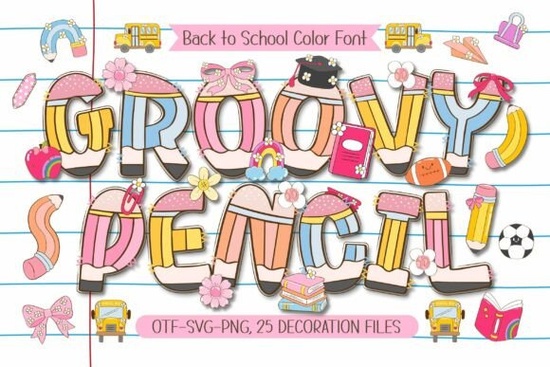
Designing back-to-school materials requires a careful balance of readability and fun. If you are creating teacher resources, classroom decorations, or custom apparel, the Groovy Pencil Font offers a straightforward way to add vibrant, educational character to your work. This hand-drawn color typeface integrates adorable pencil-shaped details directly into the letterforms, saving you the extra step of sourcing separate icons. Whether you are a seasoned graphic designer or a creative hobbyist making DIY crafts for your children, having a reliable, thematic typeface can significantly speed up your workflow.
What exactly comes inside this colorful font bundle?
When you download the Groovy Pencil Font, you receive much more than a standard set of alphabet characters. The package features the main typeface available in four bright, pre-colored variations. This means the multi-colored effect is built directly into the file, which is highly convenient for crafters using design software. Alongside the typography, the creator includes 25 hand-drawn school-themed doodle cliparts. These extra graphics cover classroom essentials and educational icons that perfectly match the lettering style. The cliparts feature common items like rulers, apples, and notebooks, which are incredibly useful for designing welcome signs or syllabus covers. Having matching typography and graphics in one place ensures visual consistency across all your printed materials.
How can small businesses apply this to print-on-demand products?
For print-on-demand sellers, standing out in the crowded back-to-school niche means offering unique, eye-catching graphics. You can use this bold style to create custom T-shirts for teachers, personalized student name labels, or festive classroom banners. Because the letters already have a built-in hand-drawn aesthetic, they look fantastic on tote bags and stickers without needing complex background illustrations. Simply type out a phrase, add one of the included doodle graphics, and your design is ready for printing. The playful nature of the artwork appeals directly to parents and educators looking for cheerful supplies. You can also use the individual alphabet letters to create personalized locker nameplates or custom binder spines. Because the style is naturally bold, it remains highly legible even when printed on textured fabrics or viewed from a distance in a busy classroom environment.
What other typefaces work well for classroom and kid-friendly designs?
Sometimes a single typeface is not enough for a complete project, especially when designing scrapbook pages or layered invitations. Mixing different styles helps create visual hierarchy. If you want to explore similar playful aesthetics for your next project, you might want to check out the energetic lines of the Sparkle Stripes typeface for a retro vibe. For projects requiring a slightly more textured, handmade feel, pairing your main text with a twisted rope style lettering adds a nice tactile contrast.
If your design needs a delicate, handwritten touch to balance the bold letters, a flowing script option like Tiasa Hurung works beautifully for subheadings or teacher names. Finally, for those working on early autumn projects that transition into fall holidays, a stitched pattern alphabet can provide a cozy, crafty alternative to standard solid colors.
- Mix and match: Combine the bold letters with the 25 included doodle cliparts to create unique, custom layouts.